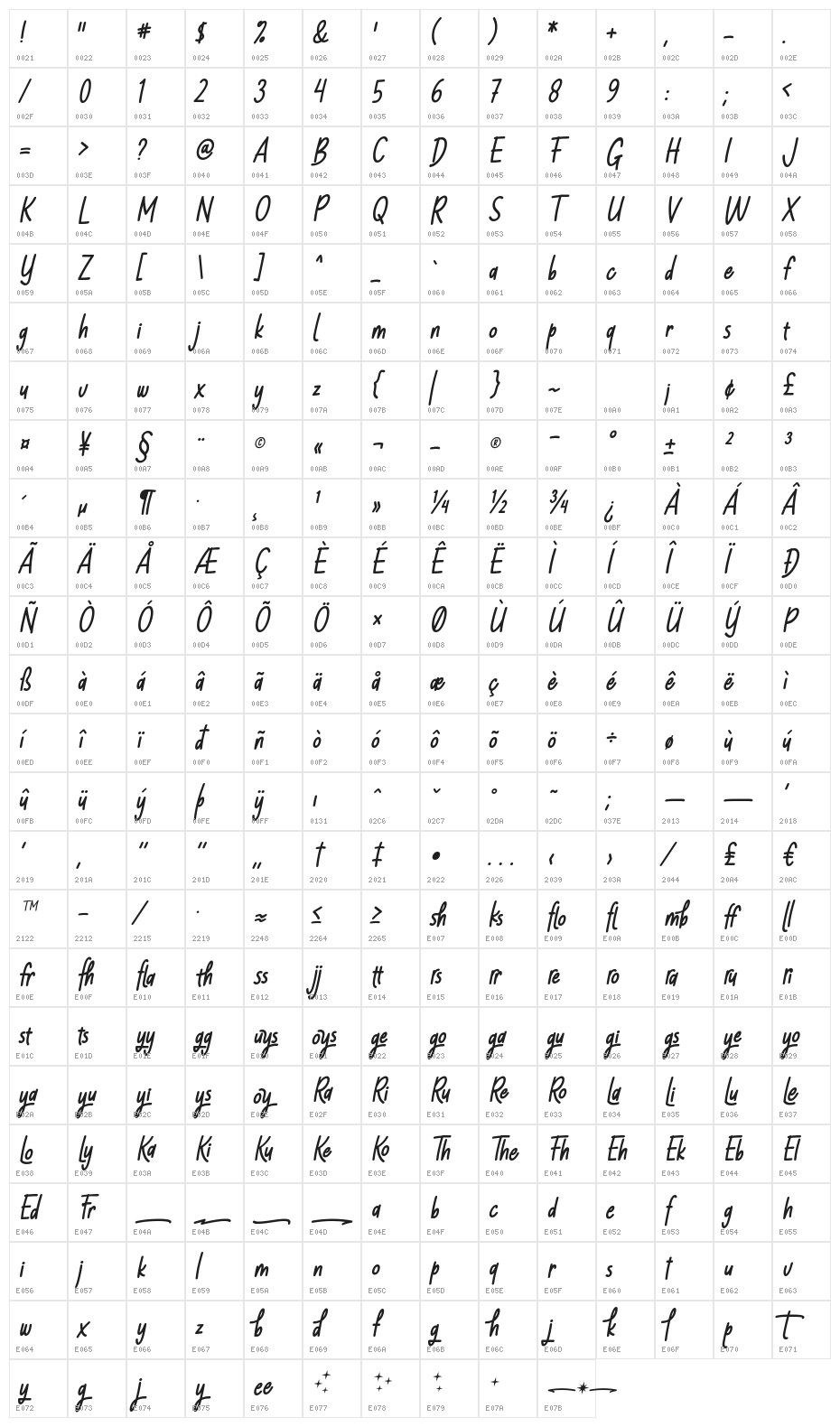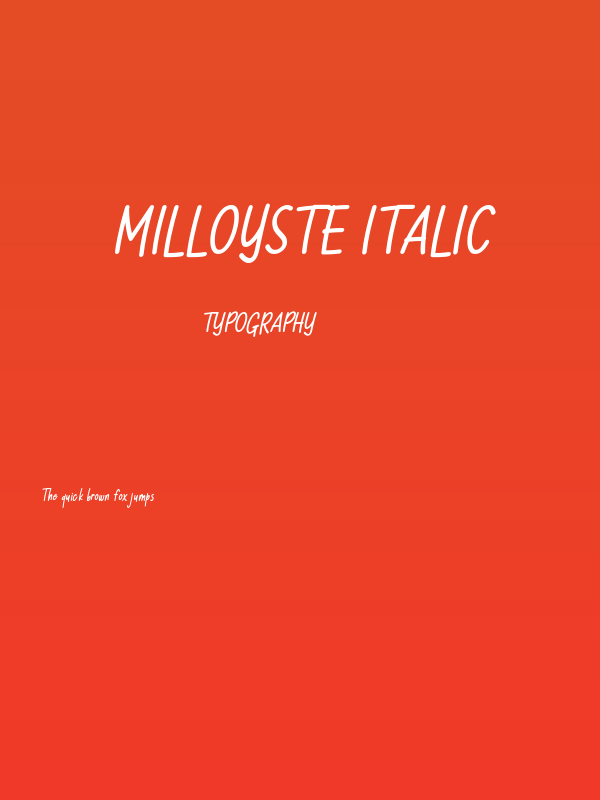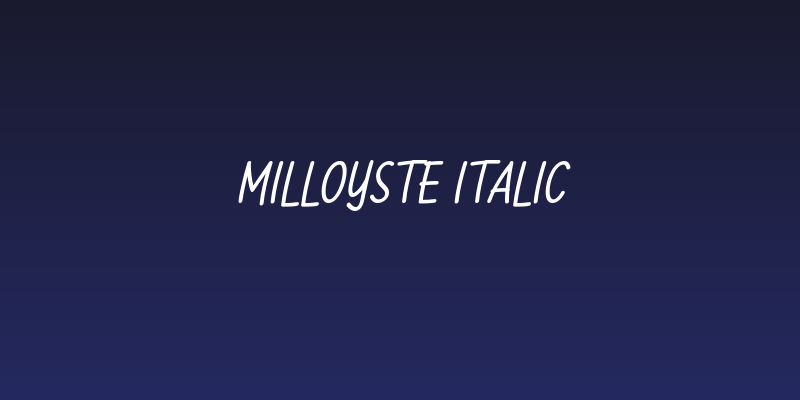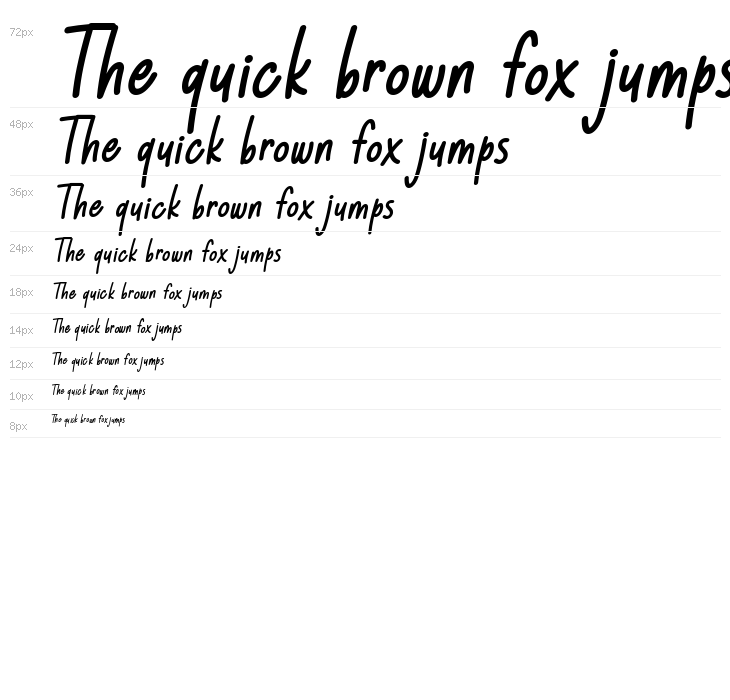
Milloyste Italic Font
Milloyste Italic Description
This font features a dynamic and fluid handwritten style, characterized by its italicized form and smooth, flowing curves. The uppercase letters are bold and slightly slanted, giving a sense of movement and elegance. The lowercase letters maintain a consistent style, with rounded edges and a casual, yet refined appearance. Numbers and special characters are crafted to match the overall aesthetic, ensuring uniformity across all glyphs. This font exudes a sense of creativity and personal touch, making it ideal for projects that require a humanistic and approachable feel.
| Proposed Projects | Ideal for creative projects such as greeting cards, invitations, personal branding, and artistic posters. |